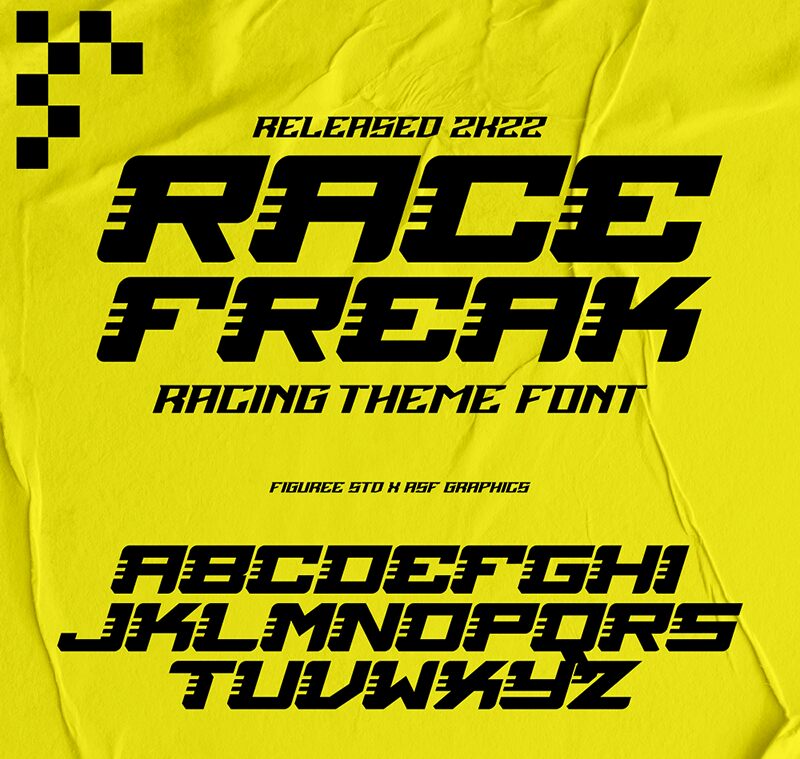
Race Freak, a bold and expansive techno display font created by Figuree Studio, exudes a captivating futuristic energy. Its sharp, angular letterforms and pronounced weight convey a sense of power and intensity, inviting the viewer to explore its dynamic aesthetic. With an expanded width that adds a striking presence, this font seamlessly blends mechanical precision and artistic flair, capturing the essence of a high-speed, technology-driven era.
The distinctive character of Race Freak makes it an exceptional choice for a wide range of design applications. Its bold, attention-grabbing nature lends itself well to headings, logos, and branding initiatives that aim to make a powerful visual impact. Furthermore, the font's techno-inspired aesthetic could elevate the visual language of digital interfaces, event graphics, and futuristic product packaging, amplifying the sense of contemporary innovation.